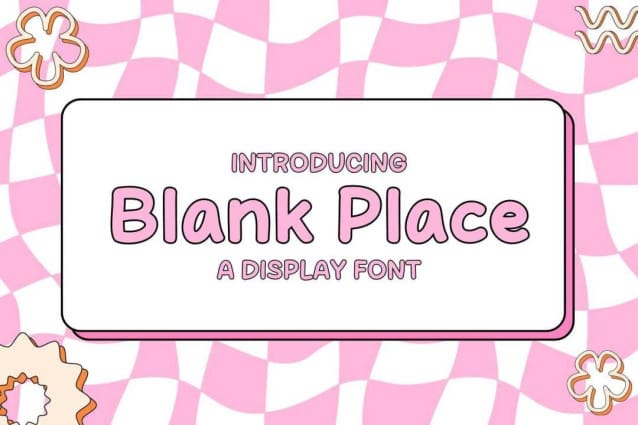
Blank Place Font
Blank Place Font is a chunky, comic, and cartoon display font. With its neat and joyful personality, this font will enhance any project you wish to create!